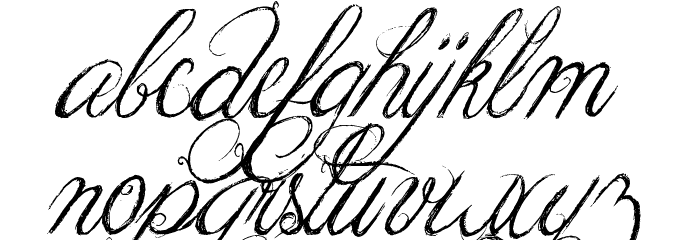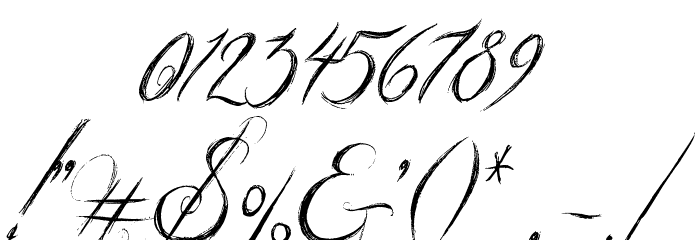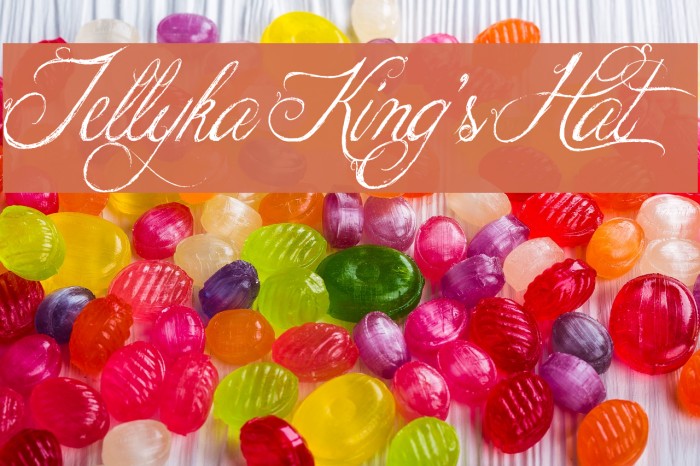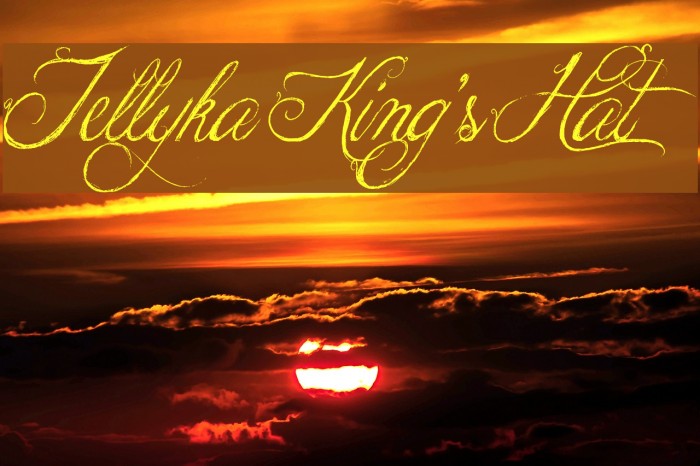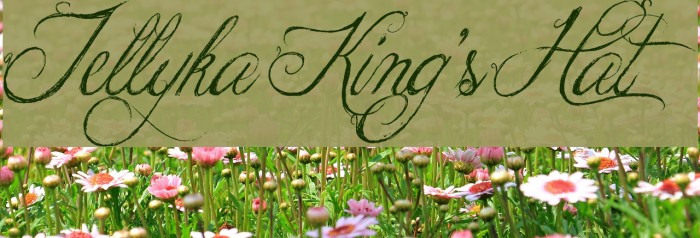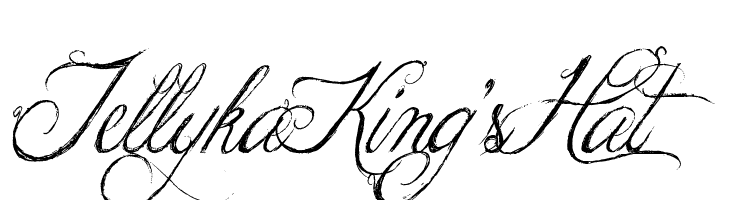
Jellyka King's Hat Font
This font exudes elegance and sophistication with its intricate and flowing script style. Each character is adorned with elaborate swirls and flourishes, creating a sense of movement and grace. The uppercase letters are particularly ornate, featuring extended loops and decorative elements that give them a regal appearance. The lowercase letters maintain the same fluidity, with a slightly more restrained design that ensures readability. Numbers and special characters are consistent with the overall aesthetic, adding a touch of whimsy and charm. This font is perfect for projects that require a touch of luxury and refinement.
An elegant and sophisticated script font with intricate swirls and flourishes.
- Proposed Projects: Ideal for wedding invitations, luxury branding, elegant stationery, and decorative headings.
- Category: Script
- Character Spacing: Tight
- Use Case: Logos, Headlines, Invitations